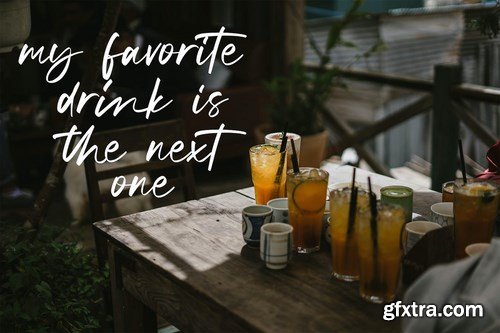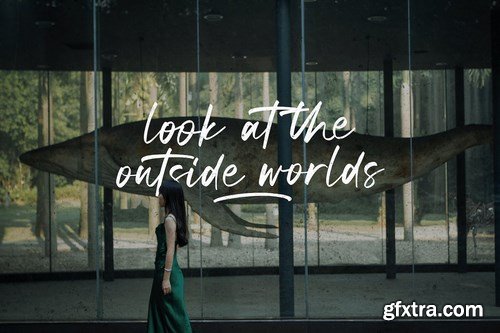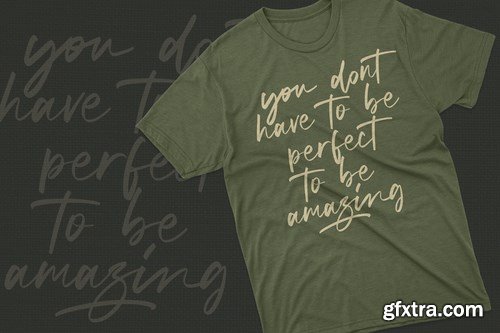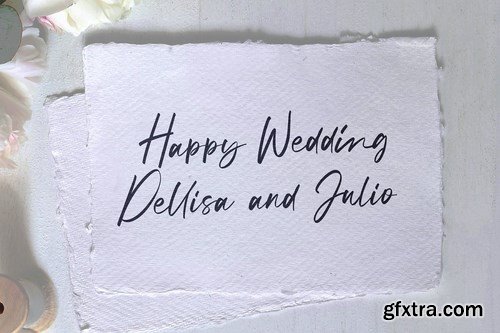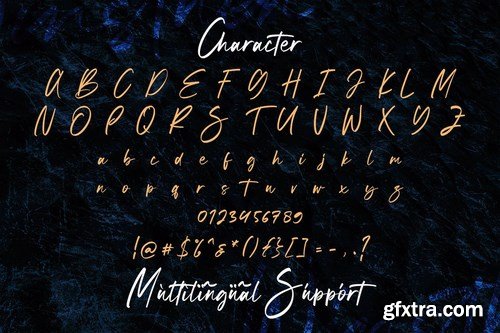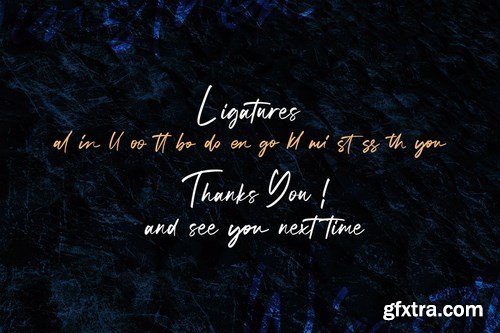
Introducing Winsthen - Handwritten Font
Winsthen is a Script Font with Handwritten Style. The Winsthen font made with digital brush pen strokes that making this font look authentic. This font is perfect for fashion brand, wedding invitation, business card, logo brand, signature, and then calligraphy.